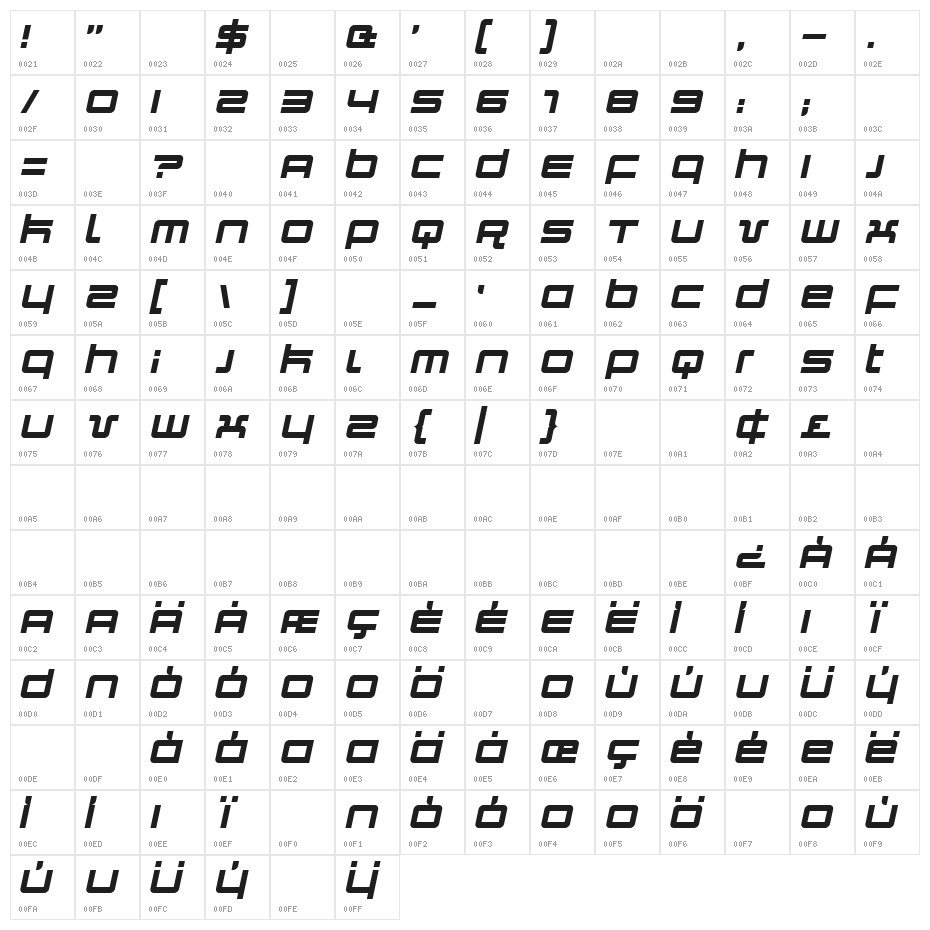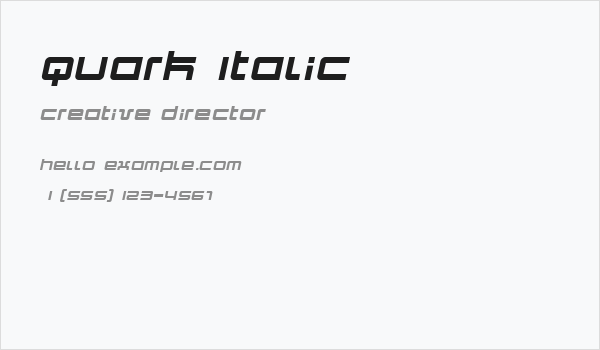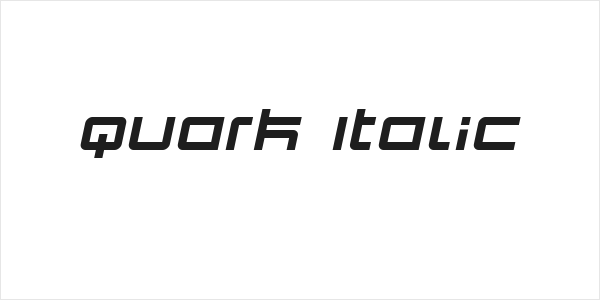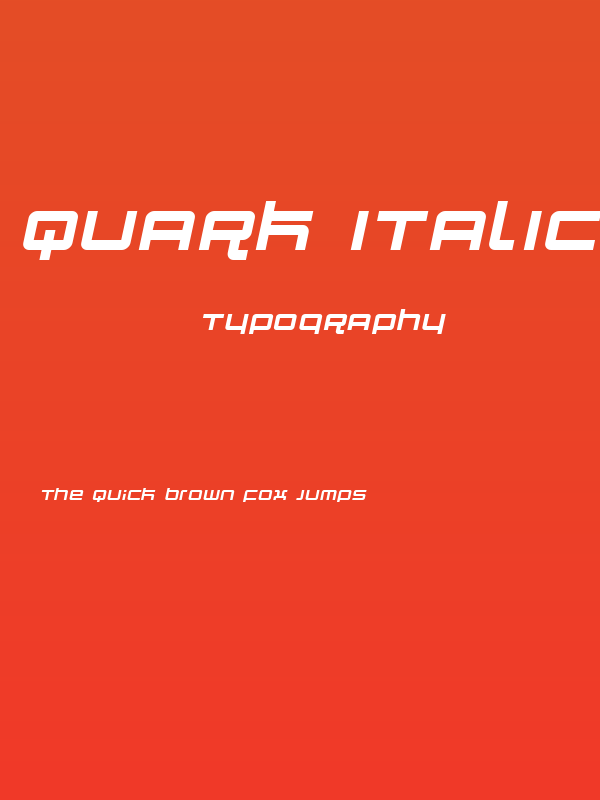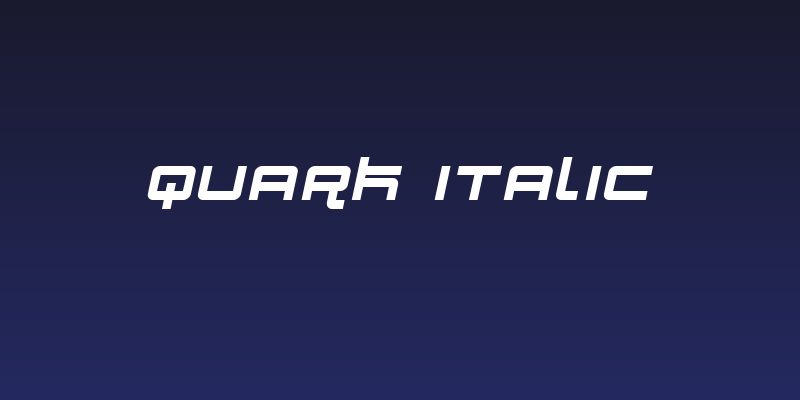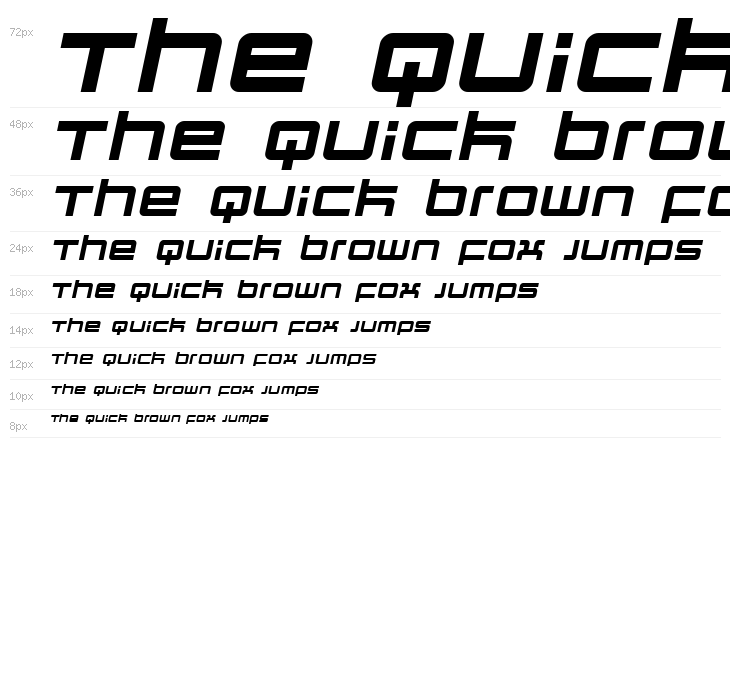
Quark Italic Font
Quark Italic Description
This font features a modern, italicized design with a sleek and futuristic appearance. The characters are slightly slanted, giving a sense of motion and dynamism. The strokes are consistent in thickness, providing a uniform look across all characters. The font maintains a geometric structure, with sharp angles and clean lines that contribute to its contemporary style. The spacing between characters is tight, enhancing the compact and efficient feel of the text. This font is well-suited for projects that require a modern and technical aesthetic.
| Use Case | Headlines, Logos, Digital interfaces |
| Proposed Projects | Ideal for technology branding, sci-fi themed projects, modern advertising, and digital interfaces. |